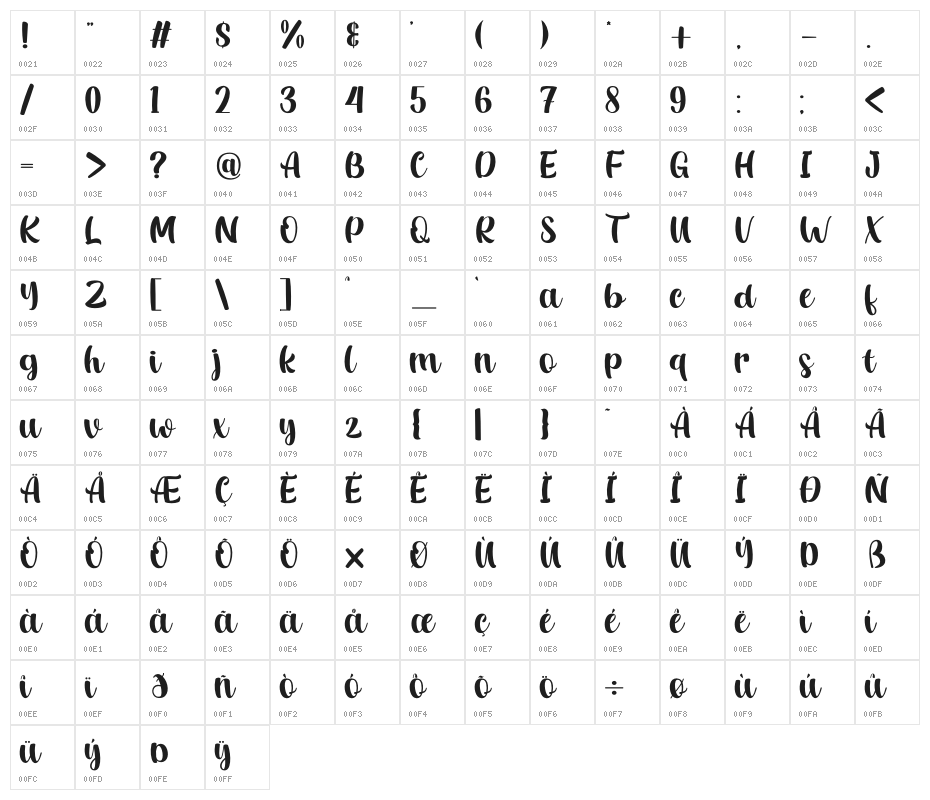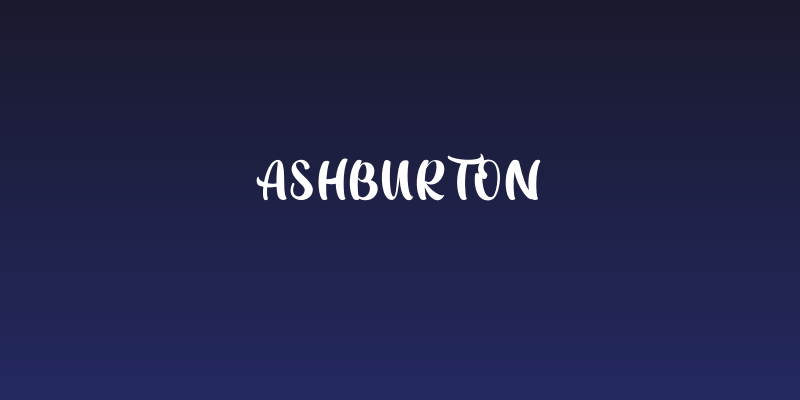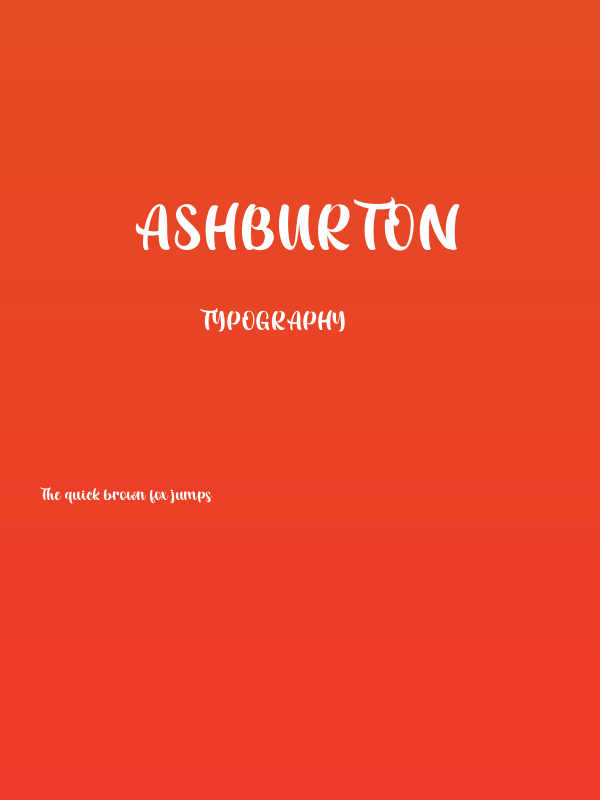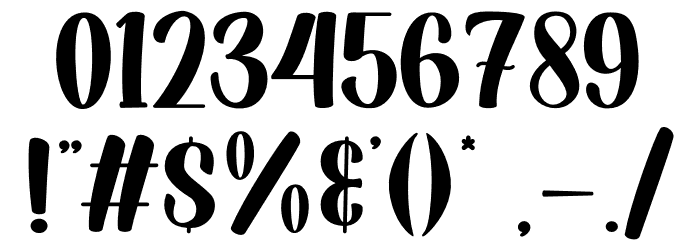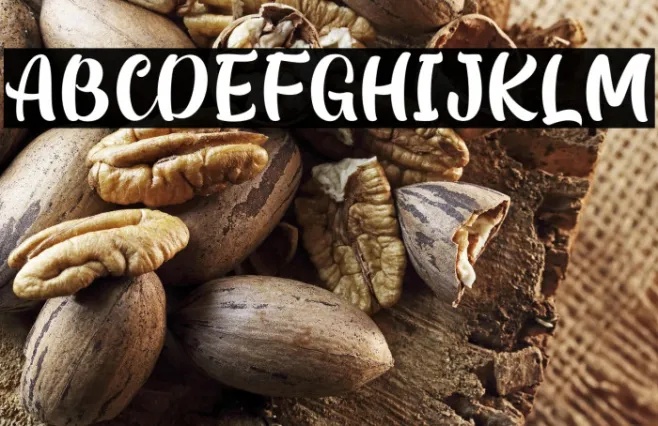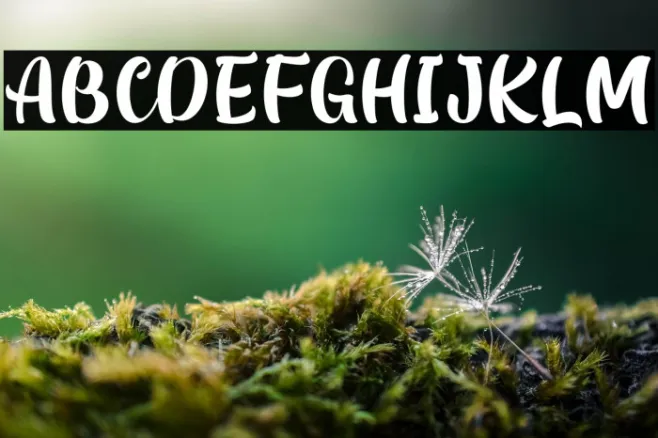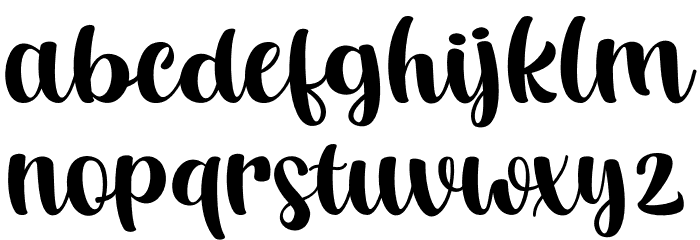
Ashburton Font
Ashburton Description
This font features a bold and expressive script style, characterized by its flowing, cursive letters that convey a sense of elegance and creativity. The uppercase letters are distinct with their sweeping curves and loops, while the lowercase letters maintain a consistent fluidity that enhances readability. The numerals are equally stylized, offering a harmonious blend with the alphabet. Special characters are designed to complement the overall aesthetic, making them suitable for decorative purposes. The font's thick strokes and smooth transitions between characters create a dynamic and engaging visual impact.
| Proposed Projects | Ideal for branding, invitations, greeting cards, and artistic projects that require a touch of elegance and creativity. |